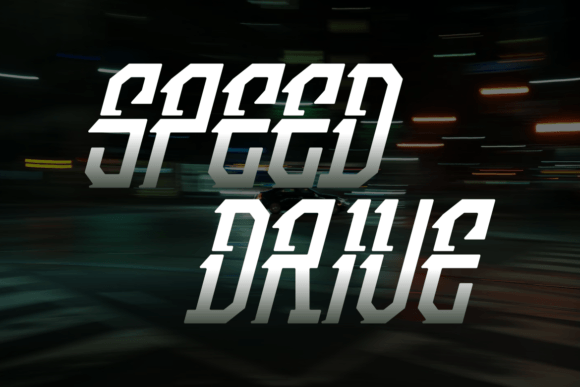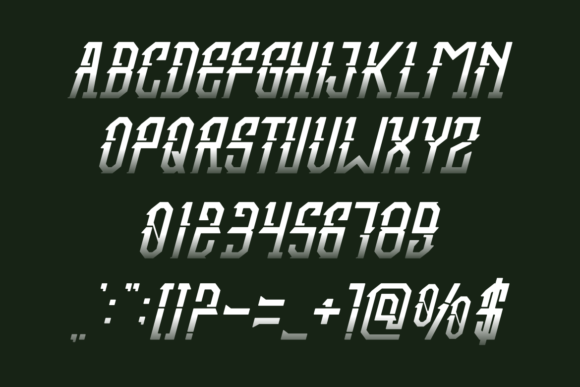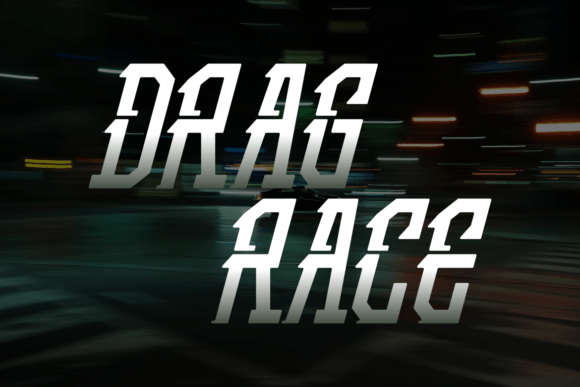
Introduction to Desepped Font
Have you ever stumbled upon a font that makes your creative project stand out from the crowd? For designers, finding the perfect font can be a game-changer. It’s that moment when everything falls into place, and your design comes alive. For me, that moment came when I discovered the Desepped Font.
This unique blackletter font exudes elegance and sophistication, making it the perfect addition to any high-quality design. Whether you’re working on a signature, logo, or magazine cover, Desepped Font is sure to elevate your design to new heights. With its transparent background and free download option, it’s become a valuable resource for designers looking to add a touch of class to their creative projects.
Key Features of Desepped Font
- High-quality, unique font design for creative projects, ideal as a design resource.
- Designed to be highly legible at various sizes and resolutions, including 300 DPI.
- Unique characteristics include an elegant, modern aesthetic and a wide range of stylistic variations.
- Perfect for use in digital design, print materials, and other creative projects that require a sophisticated font.
Honest Review: Desepped Font
I recently had the opportunity to work with the Desepped Font on a creative project, and I must say I was quite impressed. As a designer, I’m always on the lookout for high-quality design resources that can elevate my work, and this font definitely delivers.
One of the standout features of the Desepped Font is its unique, modern aesthetic. The font is sleek and sophisticated, making it perfect for a wide range of creative projects, from branding and marketing materials to digital products and print designs. ✨
Here are some of the things that work well with the Desepped Font:
- High-quality design that looks great at various sizes and resolutions
- Transparent background, making it easy to use in both dark and light color schemes
That being said, I did encounter a few limitations with the Desepped Font:
- Some characters may require manual kerning to achieve optimal spacing
- Not as extensive a character set as some other fonts in the same category
- Not suitable for use in very small sizes or with low-resolution displays
Overall, I was very pleased with the Desepped Font, and I would definitely recommend it to designers looking for a high-quality, modern font for their creative projects. ⚠️ Just be aware of the limitations mentioned above, and you’ll be golden!
Desepped Font is a unique, high-quality design resource ideal for creative projects. This font offers a transparent background, making it perfect for overlaying on images or backgrounds.
Tips for Getting the Most Out of Desepped Font
Experiment with different font sizes, colors, and combinations to achieve unique designs. Use the transparent background to create visually appealing overlays.
Desepped Font is ideal for creative projects such as graphic designs, invitations, social media graphics, and more. Its high-quality design makes it perfect for professional and personal use.